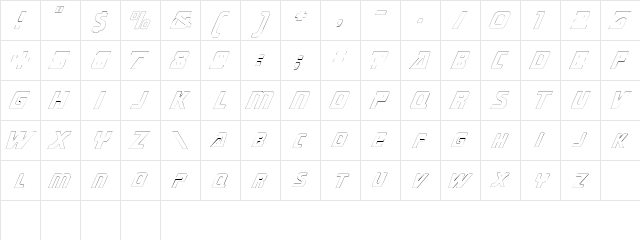
SubmarineOutline Regular
Design Context for SubmarineOutline Typeface
SubmarineOutline brings ornamental detail and strong personality to headlines and identities, where visual impact matters more than quiet functionality.
Font Pairing: Pair with a clean neutral sans-serif for body copy to let SubmarineOutline's character lead without overwhelming the composition.
Pro Tip: Treat SubmarineOutline as the centrepiece of your typographic hierarchy. One strong heading set in a decorative face can carry an entire layout.